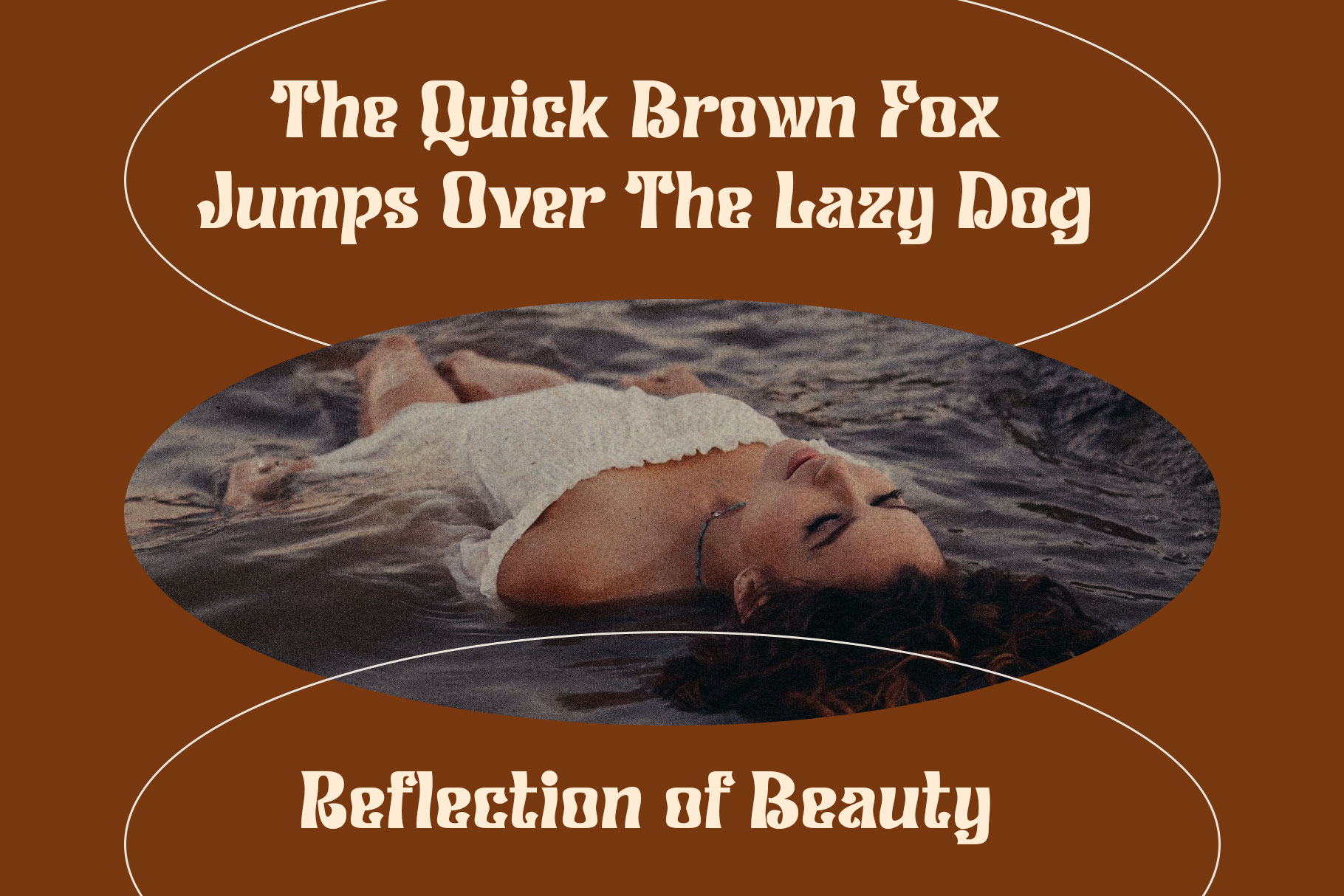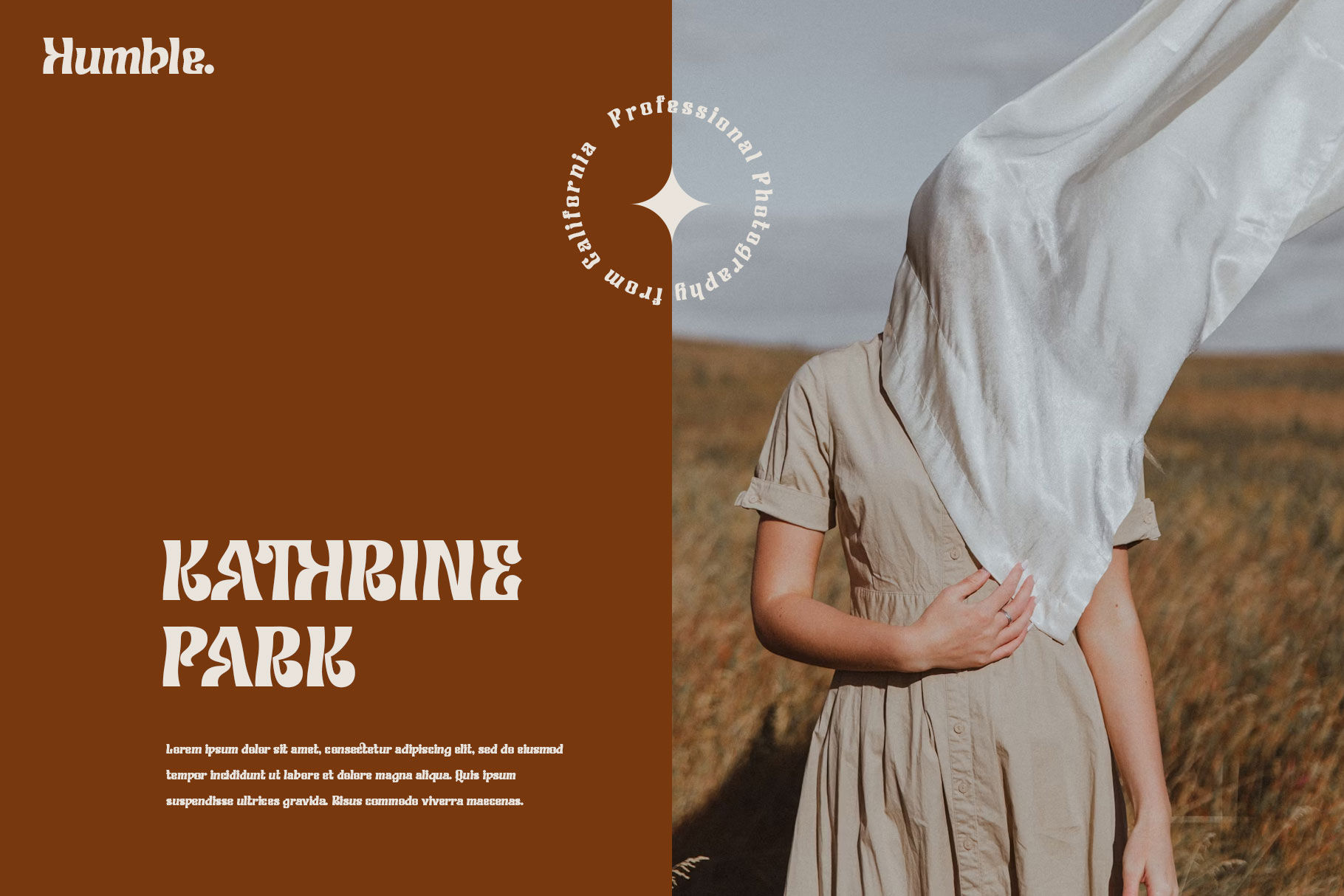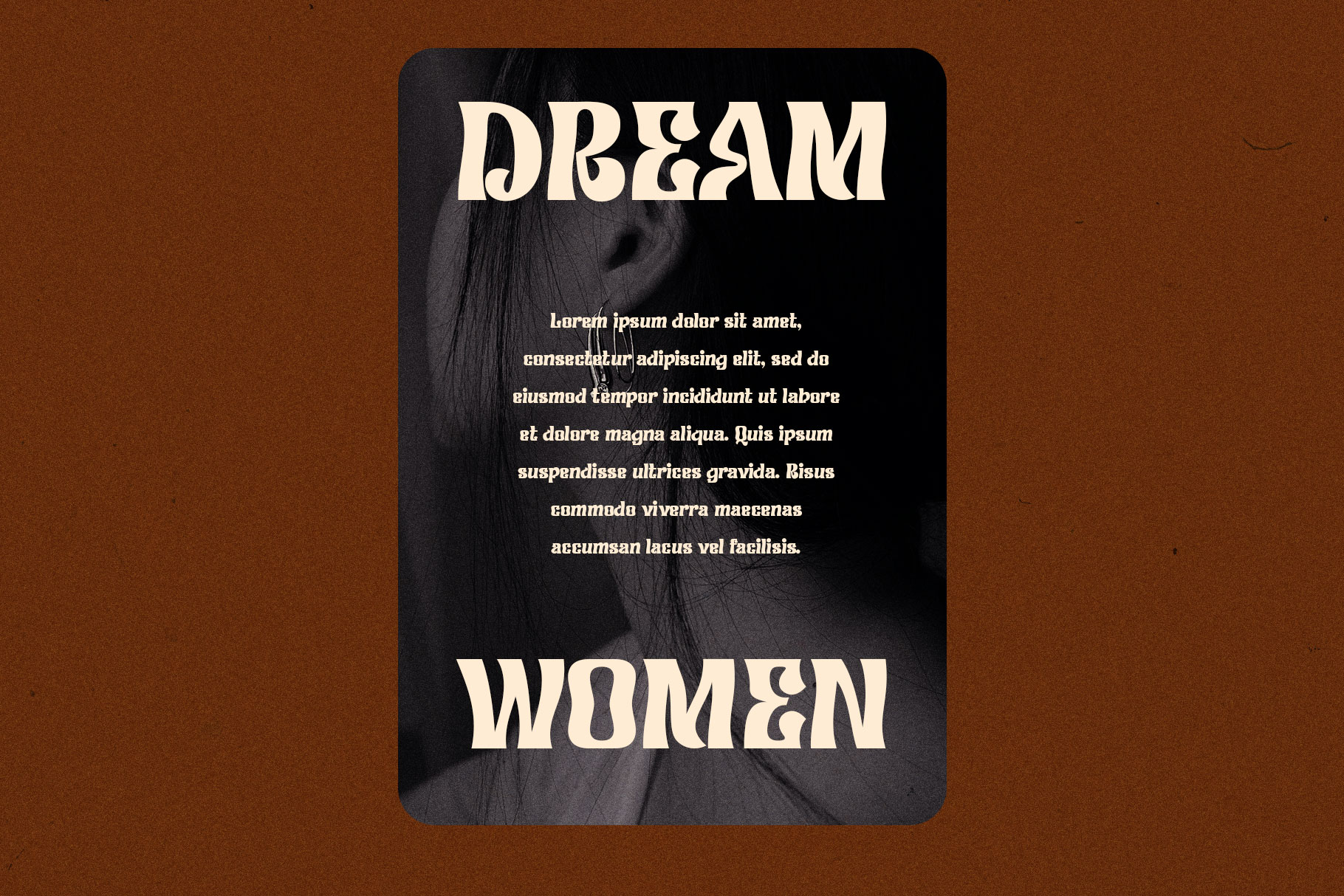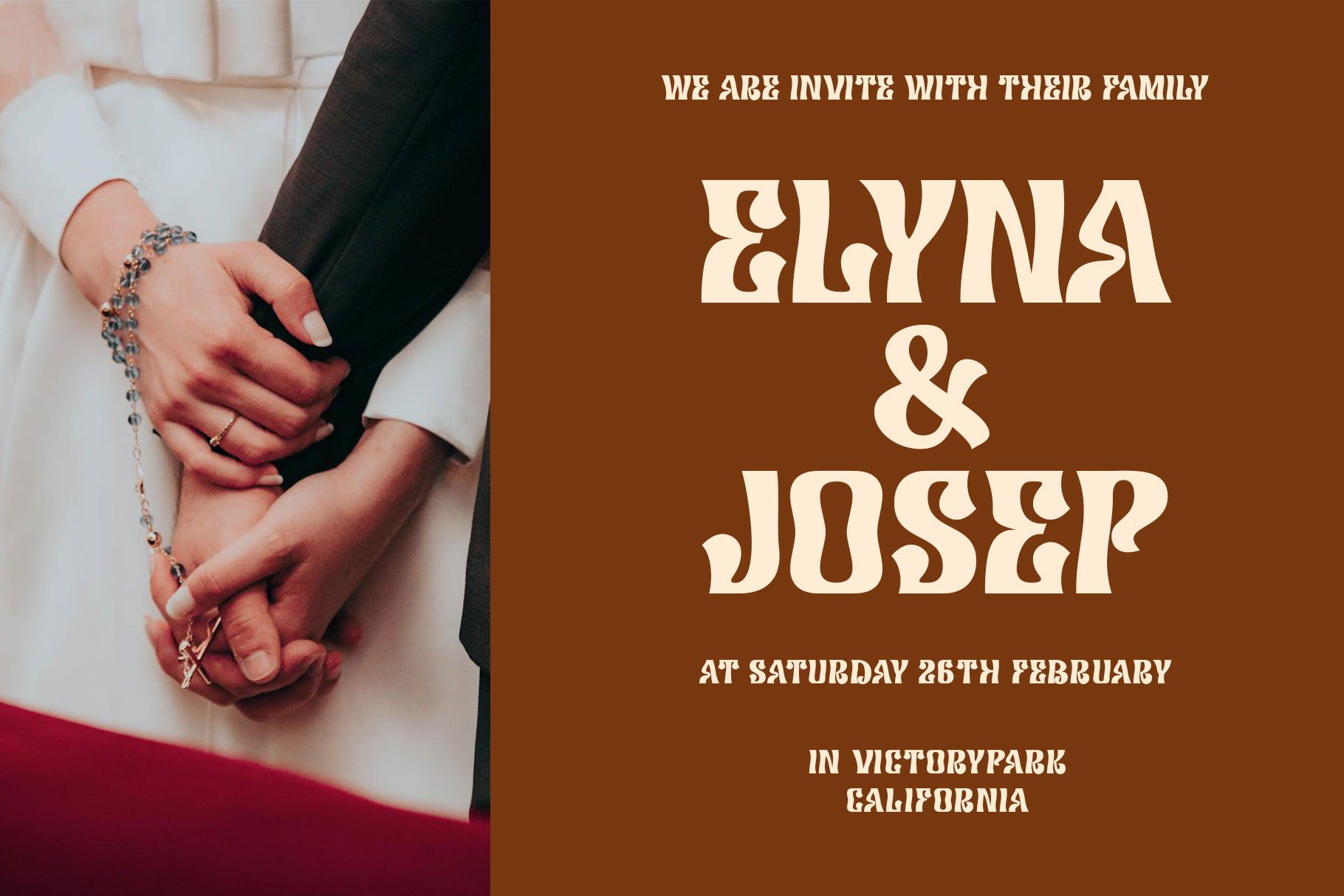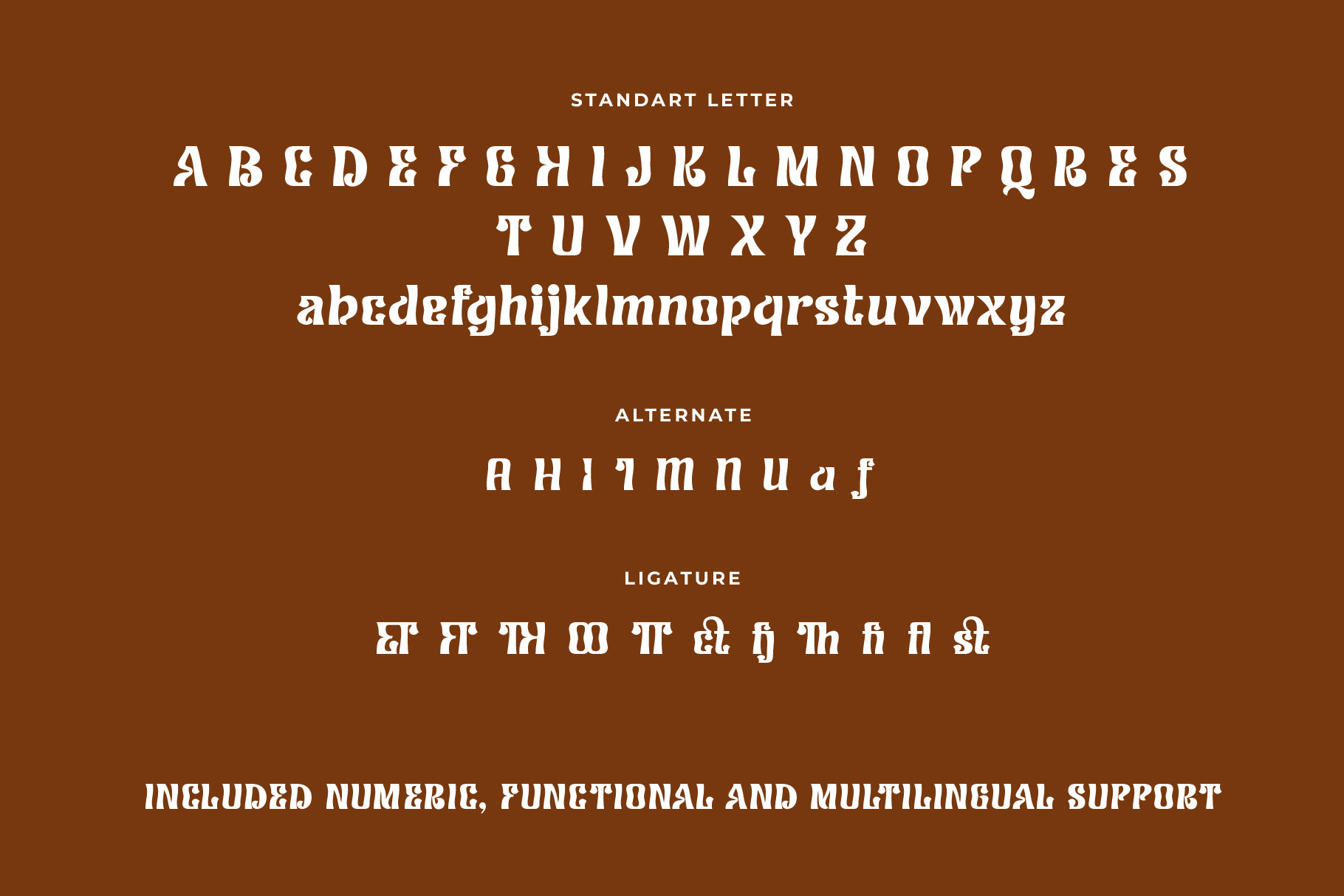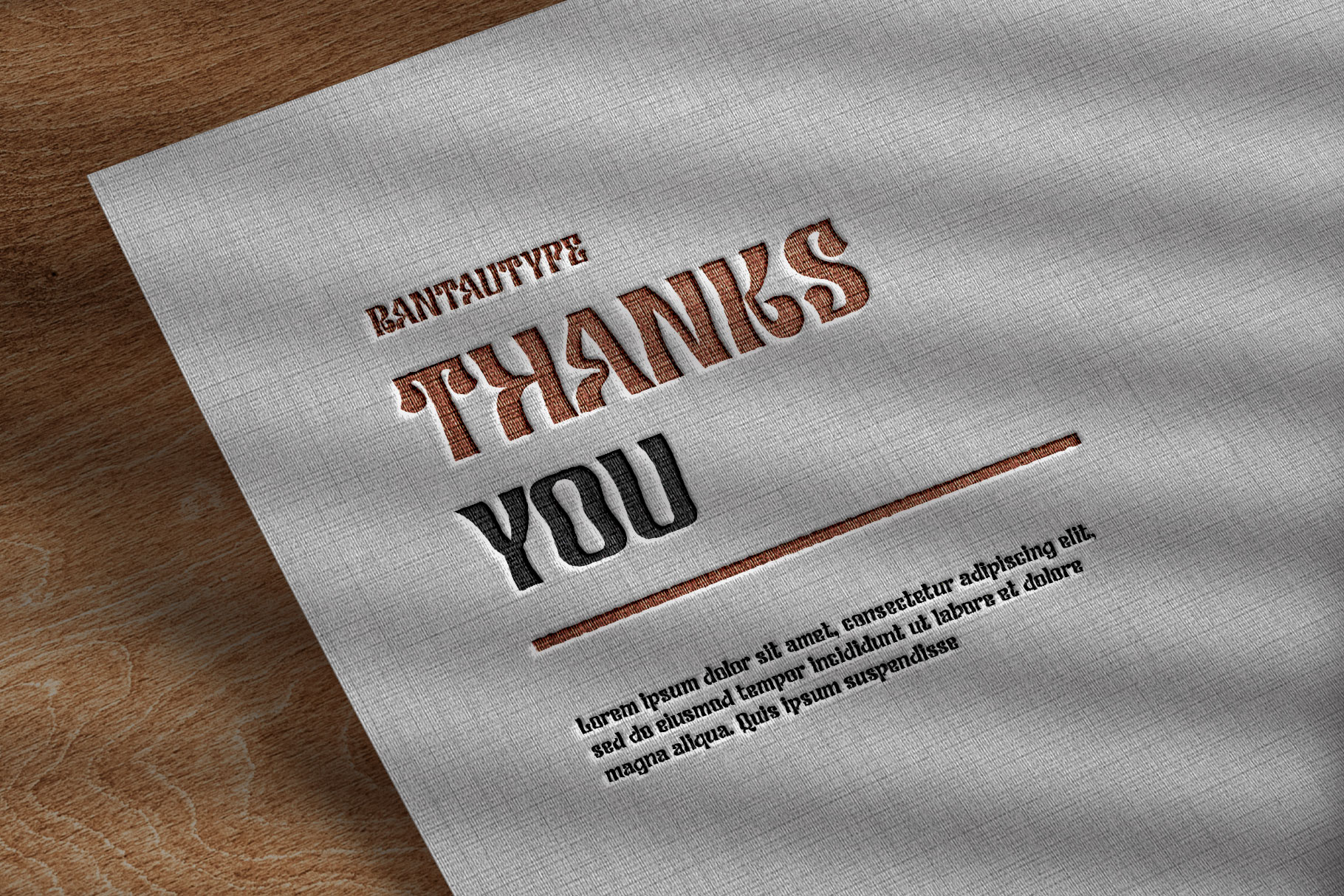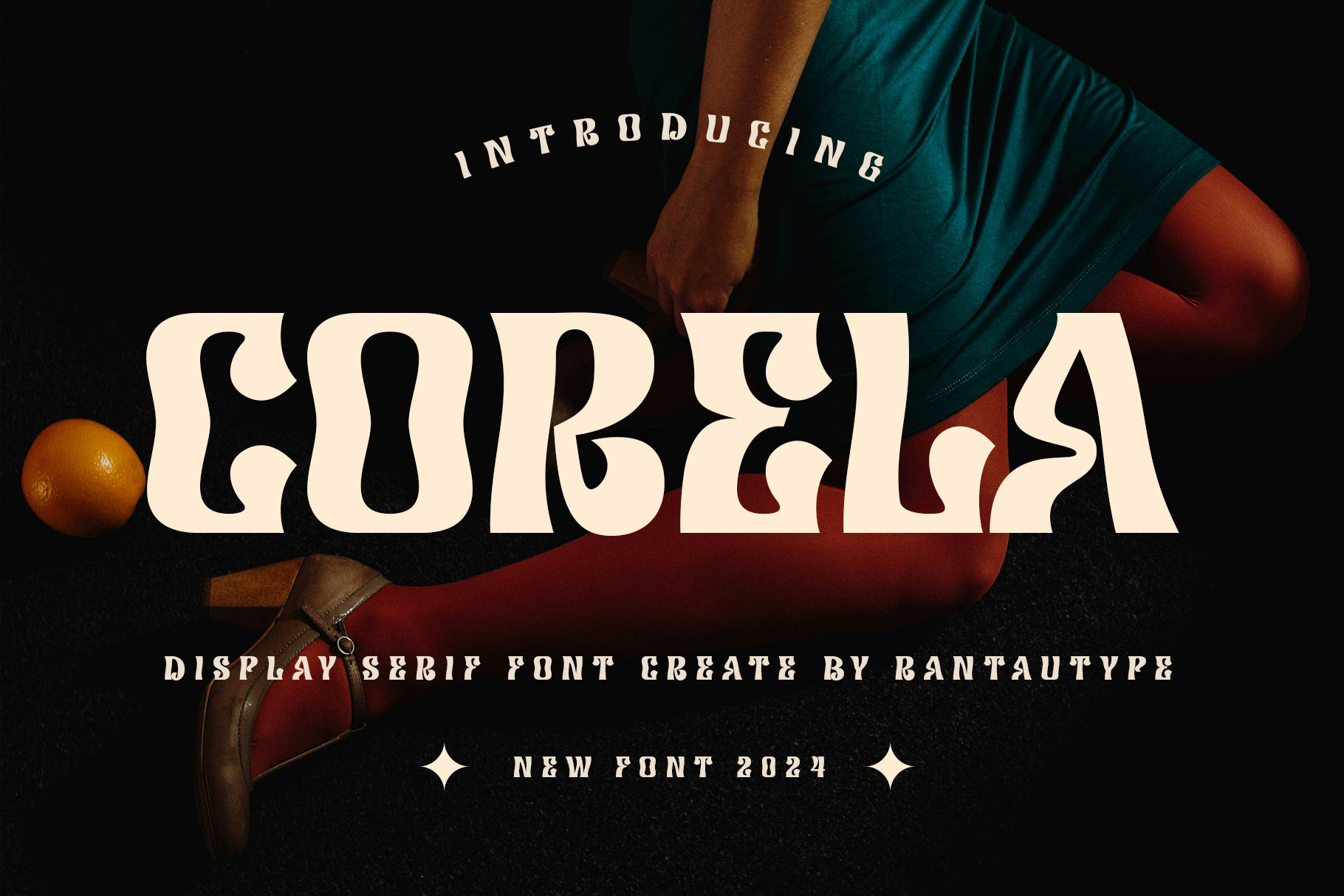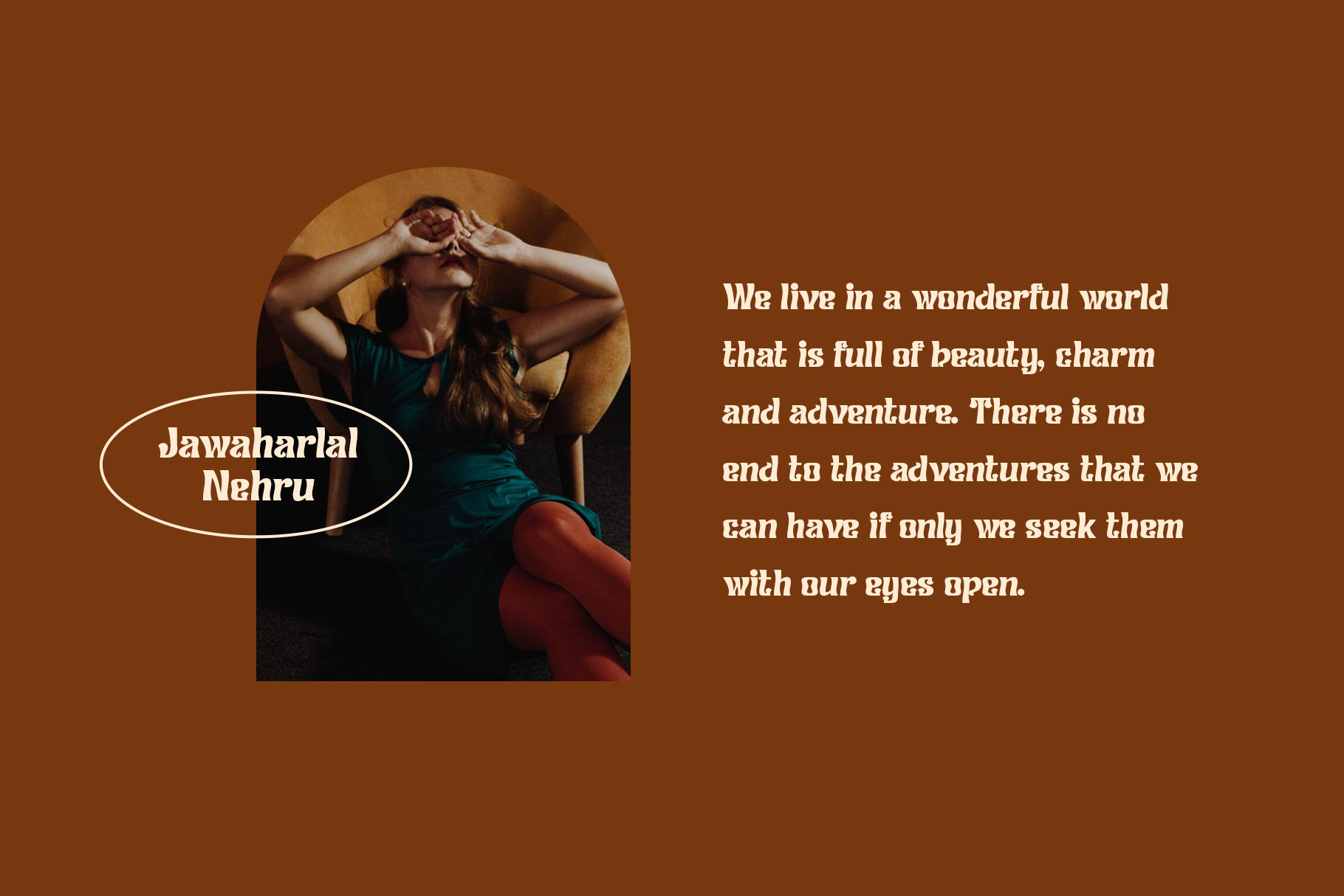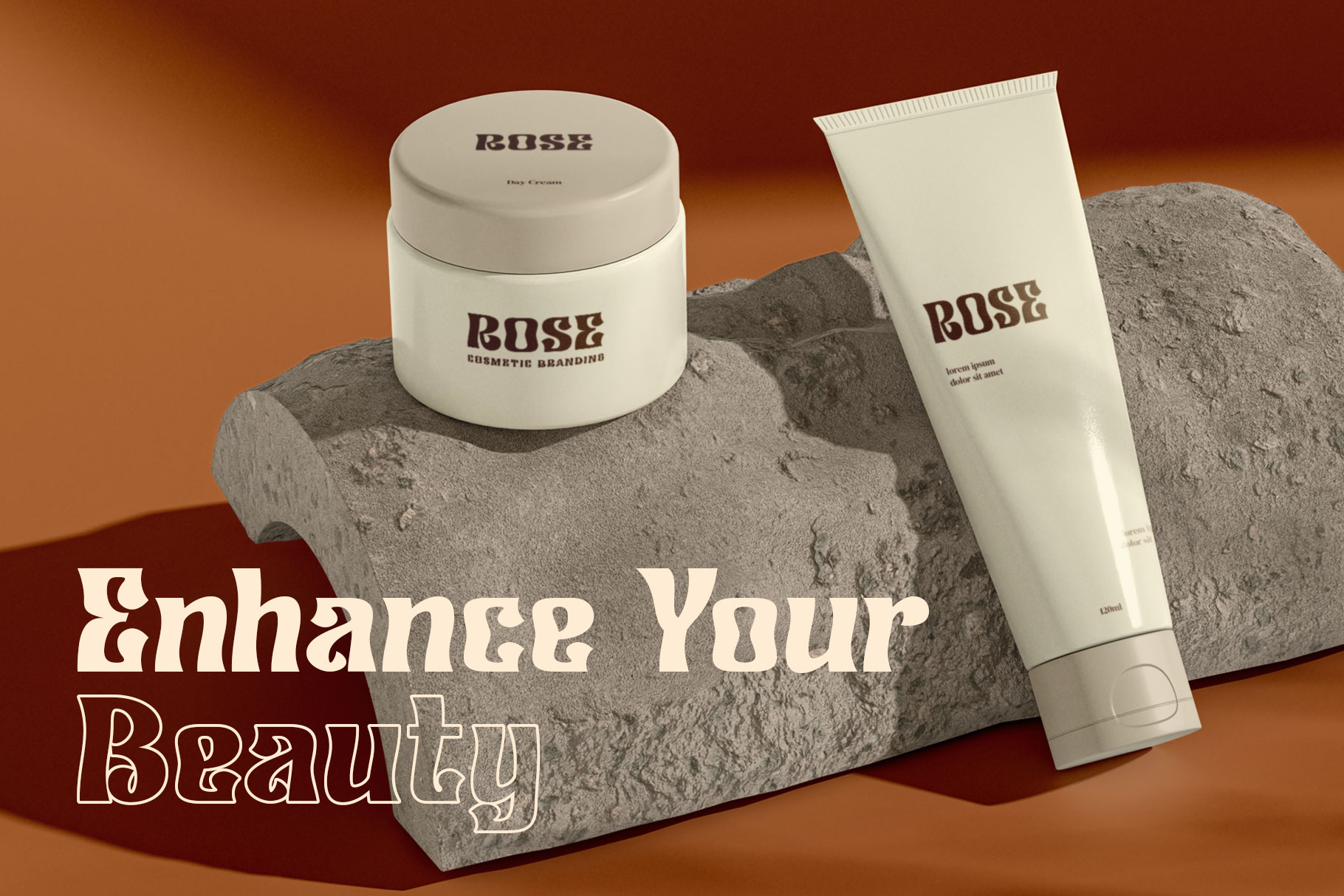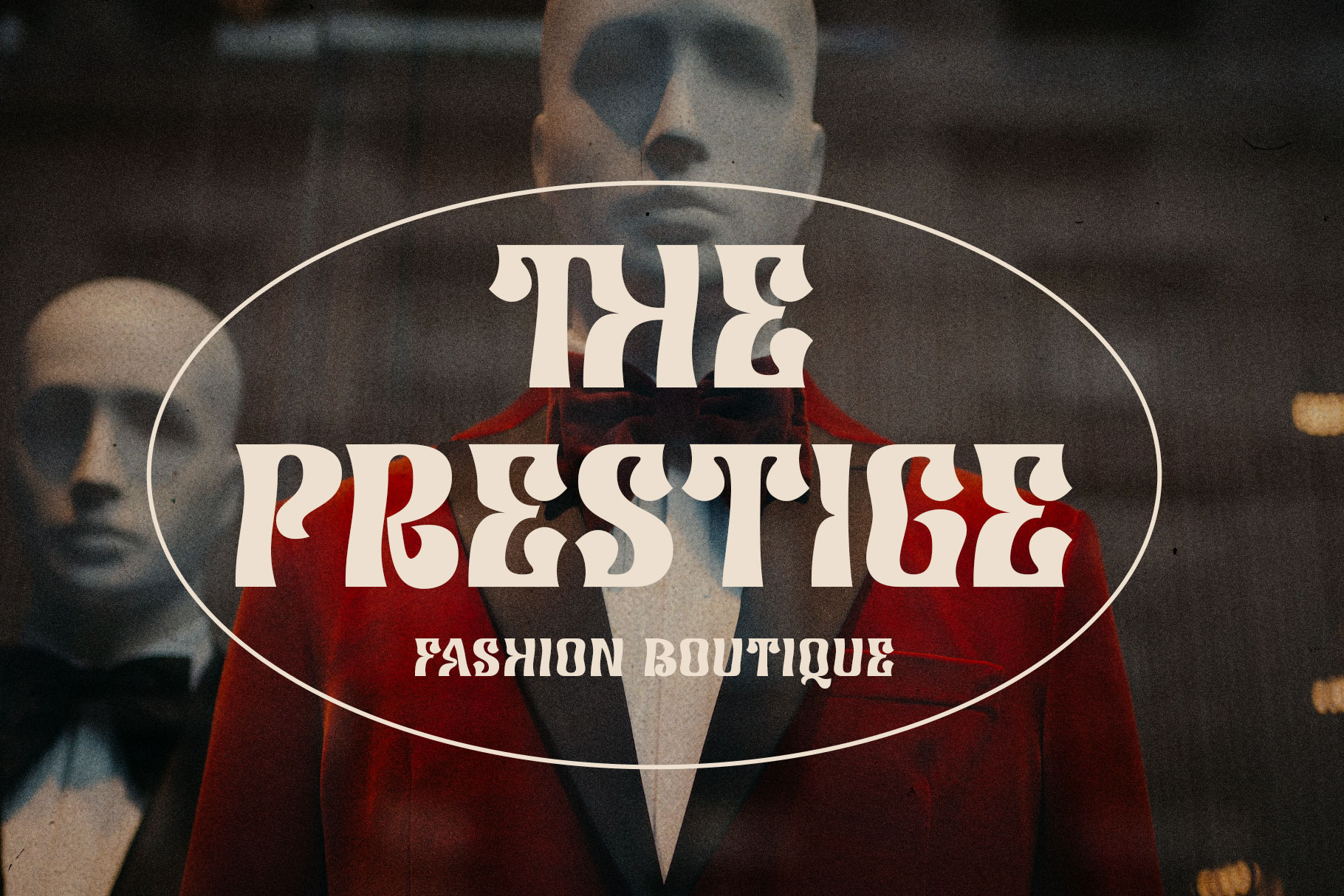
Corela Elegant Display Font
Corela is a unique display serif font that embraces classic and nineteen vibes but look elegant. Its delicate curves and refined details create a sense of sophistication and femininity. Corela brings a touch of charm and sophistication to branding, editorial designs, and more.  We keep this font looks fashionable, elegant, luxury, premium, modern, catchy and easy to use. With its versatility and contemporary appeal,
Corela is a beautiful choice for any creative endeavor, chic, lifestyle design such as logos, title, cover, branding, display, magazine and more. Now you using Corela to elevate you design or branding.
• Standar letter A-Z and a-z